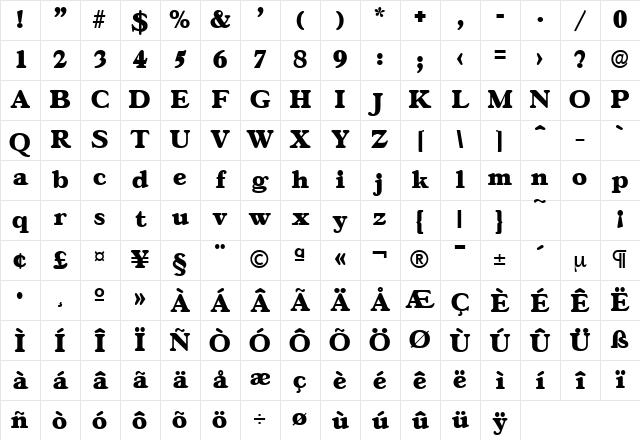
Complete Gascogne-Serial-Heavy Regular glyph index. Displaying only characters natively supported by Gascogne-Serial-Heavy Regular font.
Gascogne-Serial-Heavy is a composed and adaptable typeface that performs quietly and consistently across a wide range of design contexts.